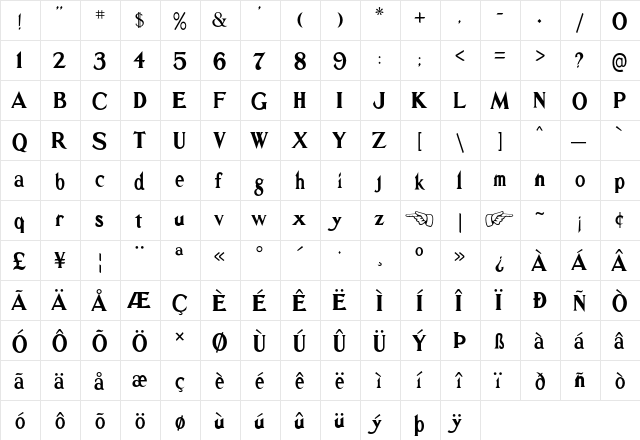
Goldburg Regular
Design Context for Goldburg Typeface
Goldburg offers clean, dependable letterforms without strong stylistic allegiance, making it a practical choice for designers who need flexibility.
Pro Tip: Use Goldburg in both headline and body roles to test its range before committing to a single application.